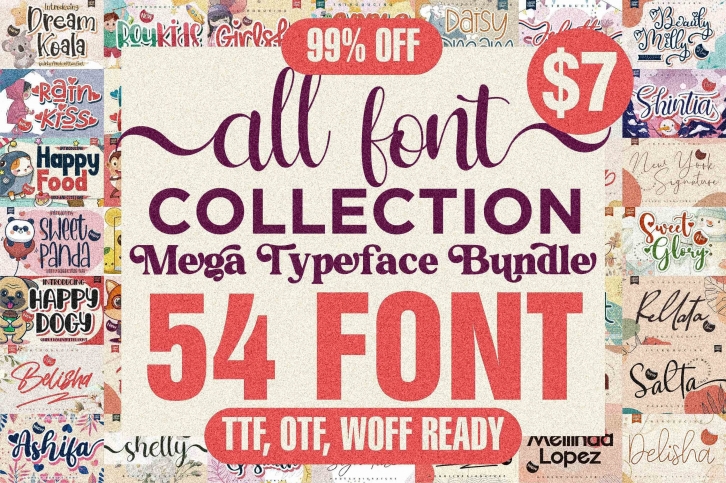
Awesome s Collection is a trendy and unique font with an authentic style. It was designed by Letterena Studios and it's a great choice for creative people who need such a font. It was released on December 5, 2020 and the file size is 7.66 MB. Awesome s Collection will add an organic vibe to any design idea!